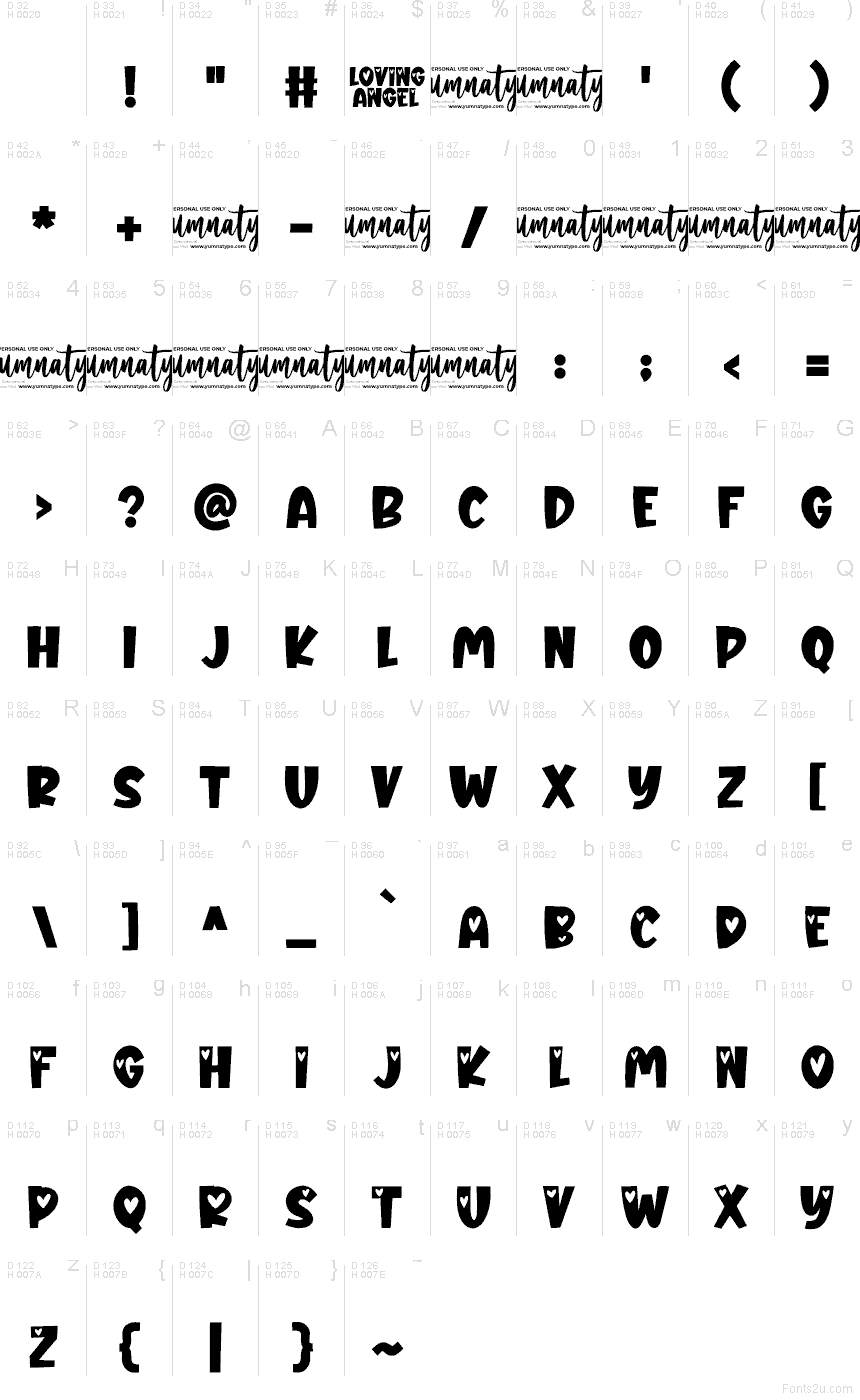
Loving Angel Personal Use
Loving Angel font by Yumna Family is a free holiday valentine comic typeface that looks like it was hand-cut from bold, inky paper. Chunky rounded letters curve into tall, playful shapes, each one punched with a bright little heart that feels like a window of light. The rhythm is bouncy and upbeat, giving every word a sugary, candy-wrapper energy that’s hard to miss on the page or screen.
Using Loving Angel, your love notes and festive projects instantly feel more fun and heartfelt. This free font shines on Valentine’s cards, kids’ party invitations, classroom decorations, stickers, social media graphics, and sweet merch like mugs or T-shirts. Set it big for headlines, then pair it with a simple clean sans-serif for smaller text so the bubbly hearts stay clear and legible.